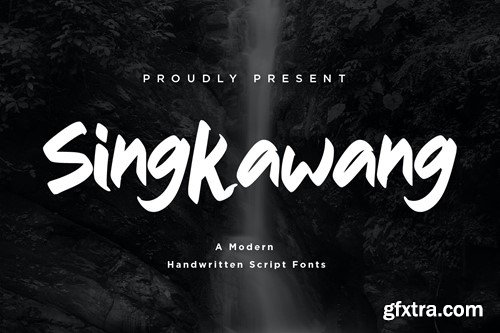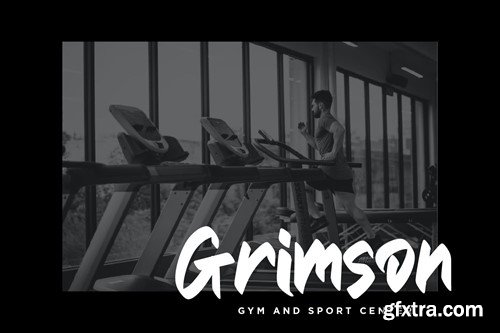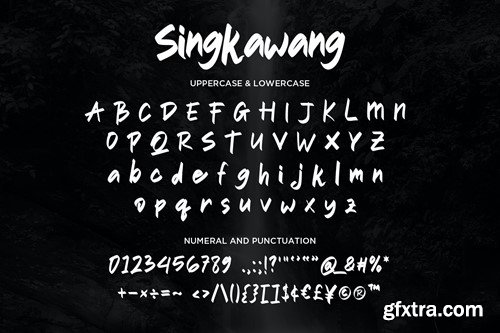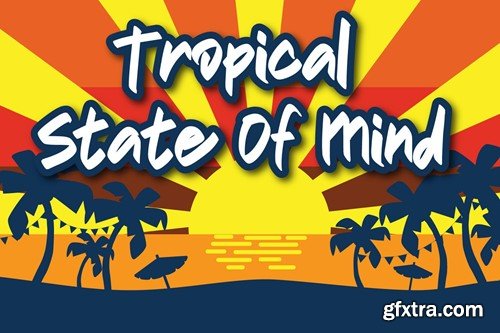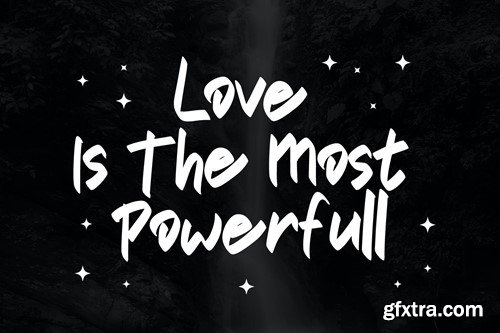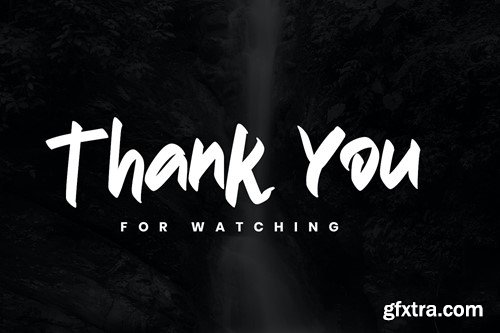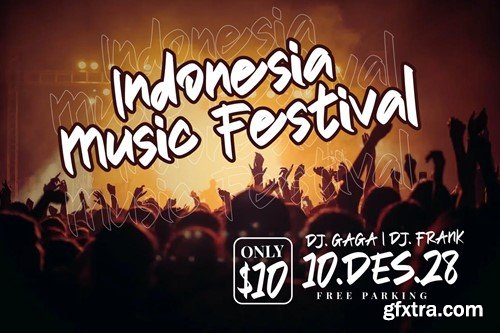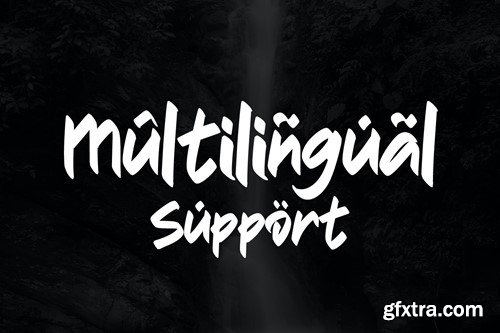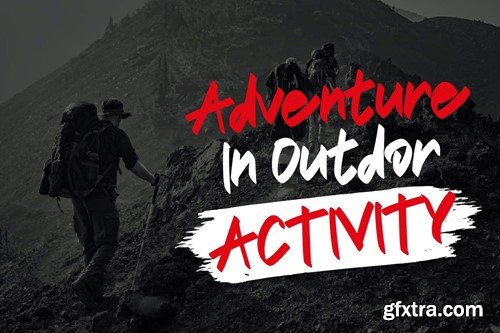
新加坡-手写体字体 AY45NVZ
Singkawang - Handwritten Script fonts AY45NVZ
Singkawang - Handwritten Script fonts
Singkawang is a Handwritten Script font, will be suitable for any projects such as branding, promotional ads, quotes design, merchandise, social media and much more. make your work or your business to high level!!! special events, and all your other lovely projects that need beautiful handwriting taste.
• Uppercase & Lowercase
• Numerals
• Punctuations (OpenType Standard)
• Accents (Multilingual Characters)